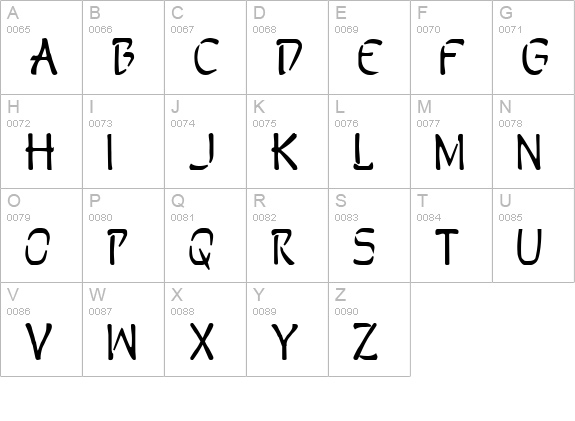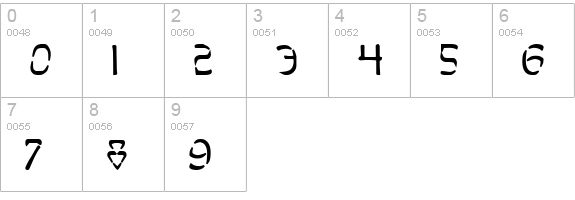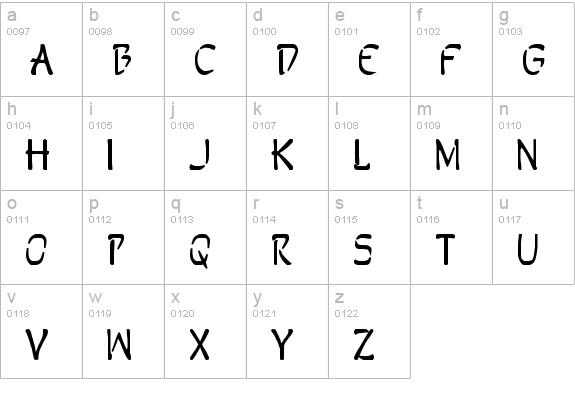
Perdition Bold is a strong, high-contrast variant in the Perdition typeface family \xE2\x80\x94 well suited to headlines, attention-grabbing titles, and strong calls-to-action.
Perdition Bold font is a captivating typeface that effortlessly blends boldness and elegance. With its strong and commanding presence, this font demands attention and leaves a lasting impression. Each character is meticulously crafted, featuring sharp edges and confident strokes that convey a sense of strength and determination. Designed for those seeking to make a statement, Perdition Bold font is the perfect choice for headlines, titles, logos, and other striking design elements. Whether used in print or digital media, this font creates a powerful visual impact that grabs the viewer's attention and holds it captive. What makes Perdition Bold font even more enticing is that it is freely available to download at FontsMarket.com. This means that designers and creatives can access this exceptional typeface without any cost, making it an accessible and valuable resource for any project. Its availability for free download allows for greater creative freedom, enabling designers to experiment and explore the full potential of Perdition Bold font without any limitations. The versatility of Perdition Bold font allows it to seamlessly adapt to various design styles, from modern and minimalistic to bold and edgy. Its timeless appeal ensures that it remains relevant and impactful in any era or trend. Whether used in print advertisements, web banners, packaging, or any other design application, Perdition Bold font adds a touch of sophistication and professionalism that elevates the overall aesthetic. With its bold and captivating nature, Perdition Bold font is an essential choice for designers seeking to make a bold statement. Its free availability for download at FontsMarket.com adds to its allure and accessibility, allowing designers to unleash their creativity without any barriers. So whether you're working on a logo, branding, or any other design project, Perdition Bold font is here to help you make a lasting impression.